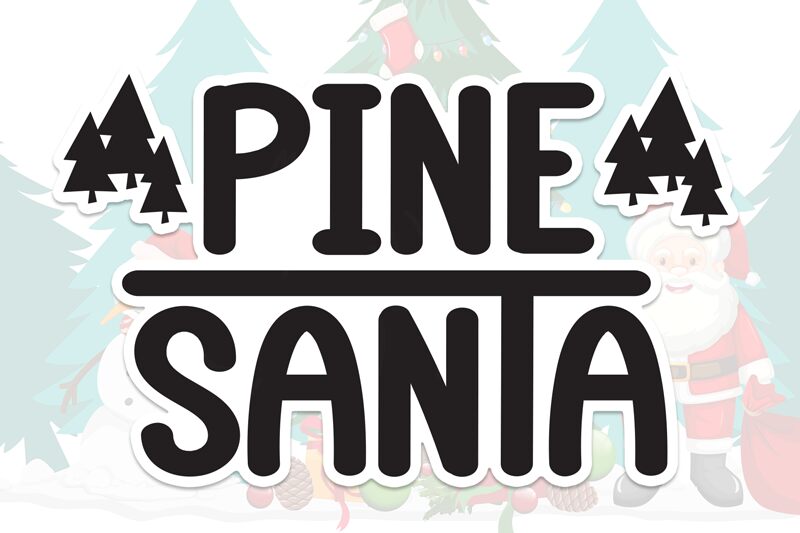
Pine Santa
Pine Santa font is a handwritten creation by Scratchones, capturing the spirit of vintage-inspired designs with a robust and bold presence. This charming font combines rounded elements for a friendly touch, making it both a stylish and versatile choice for your design projects.
Use Pine Santa for brand packaging, coffee labels, real estate advertisements, book covers, or luxury restaurant menus. Experiment with it in beer labels or any branding project that needs to instantly capture attention. Don’t miss out on this free handwritten font and add it to your design toolkit!